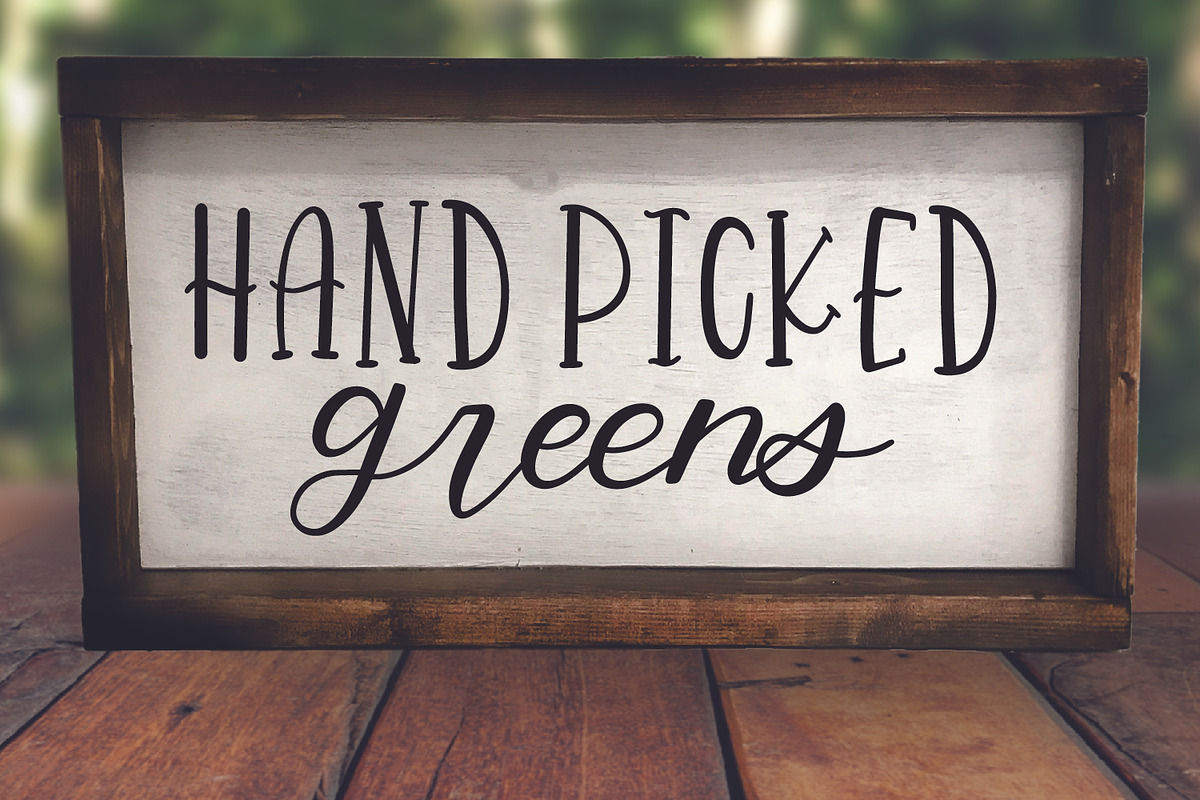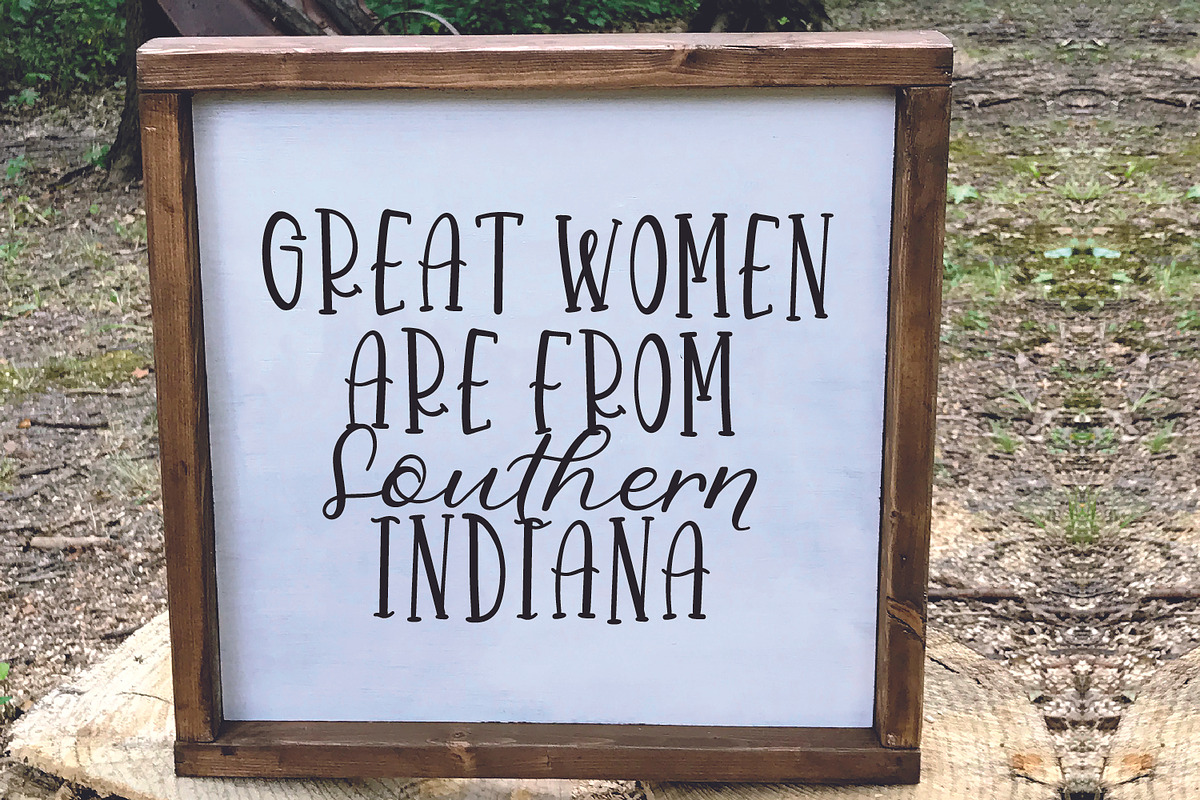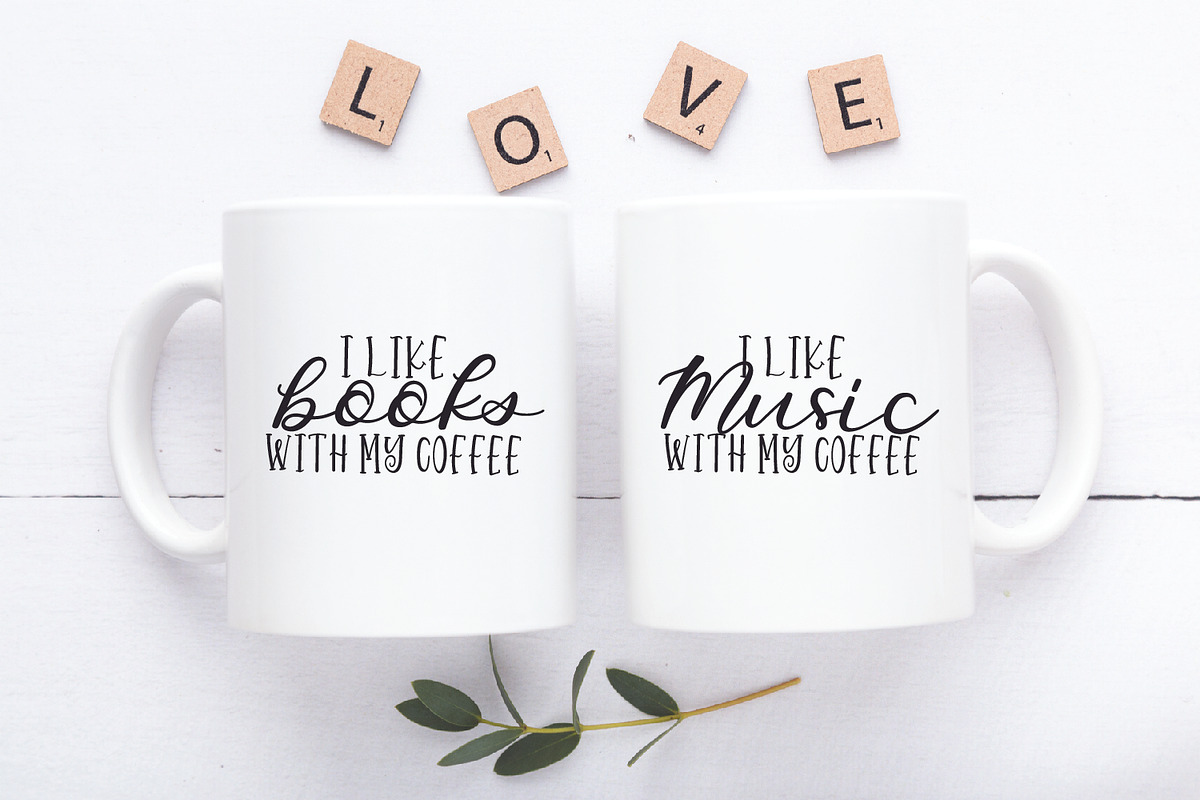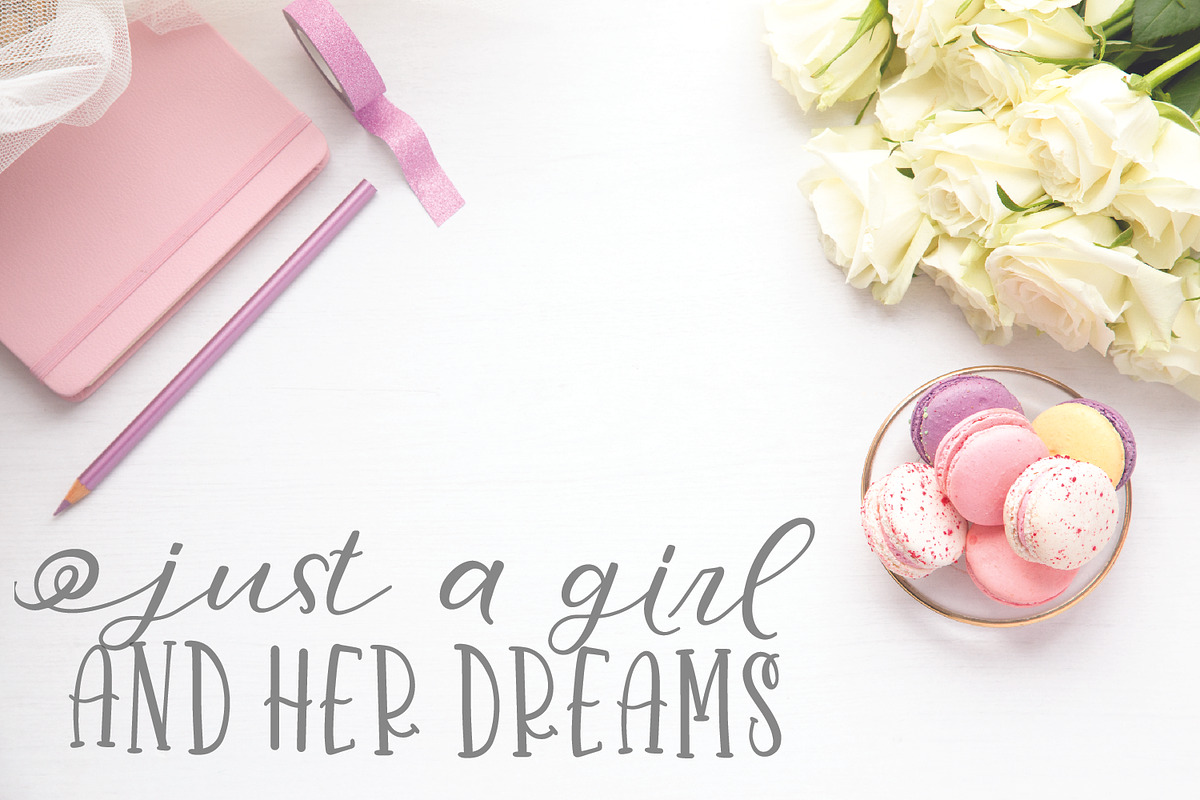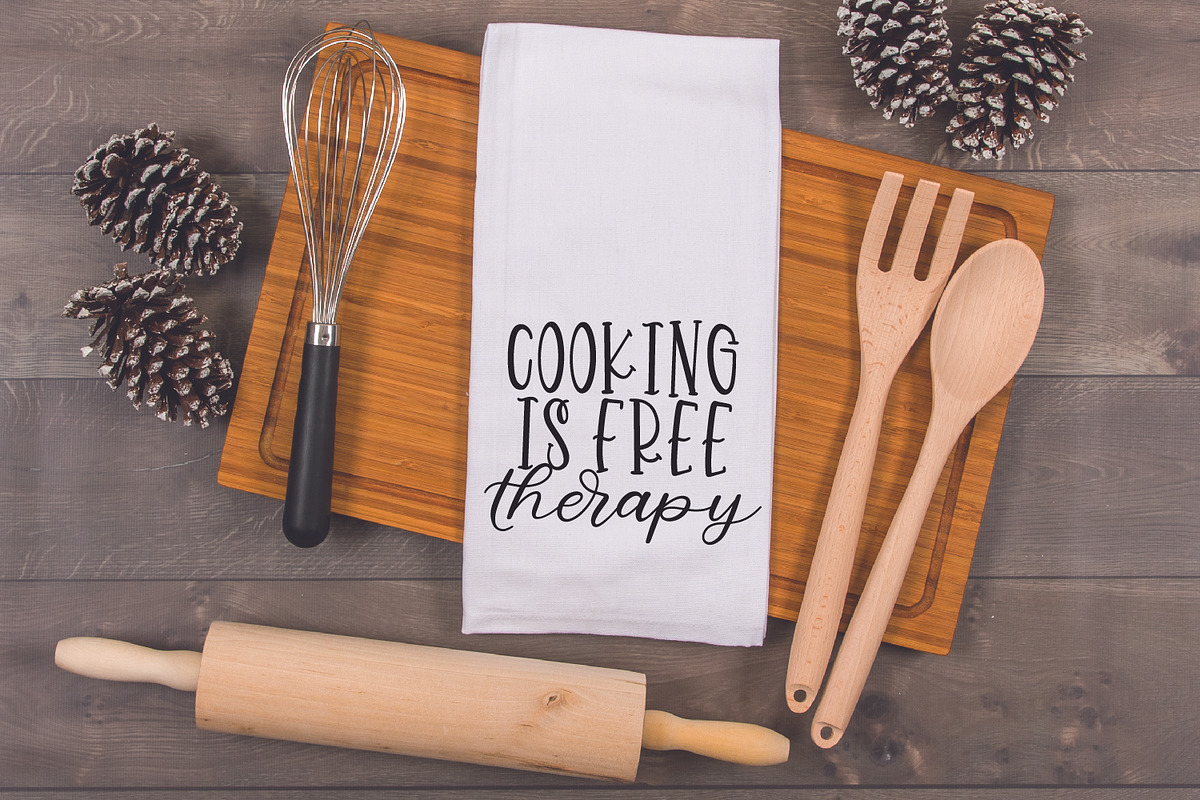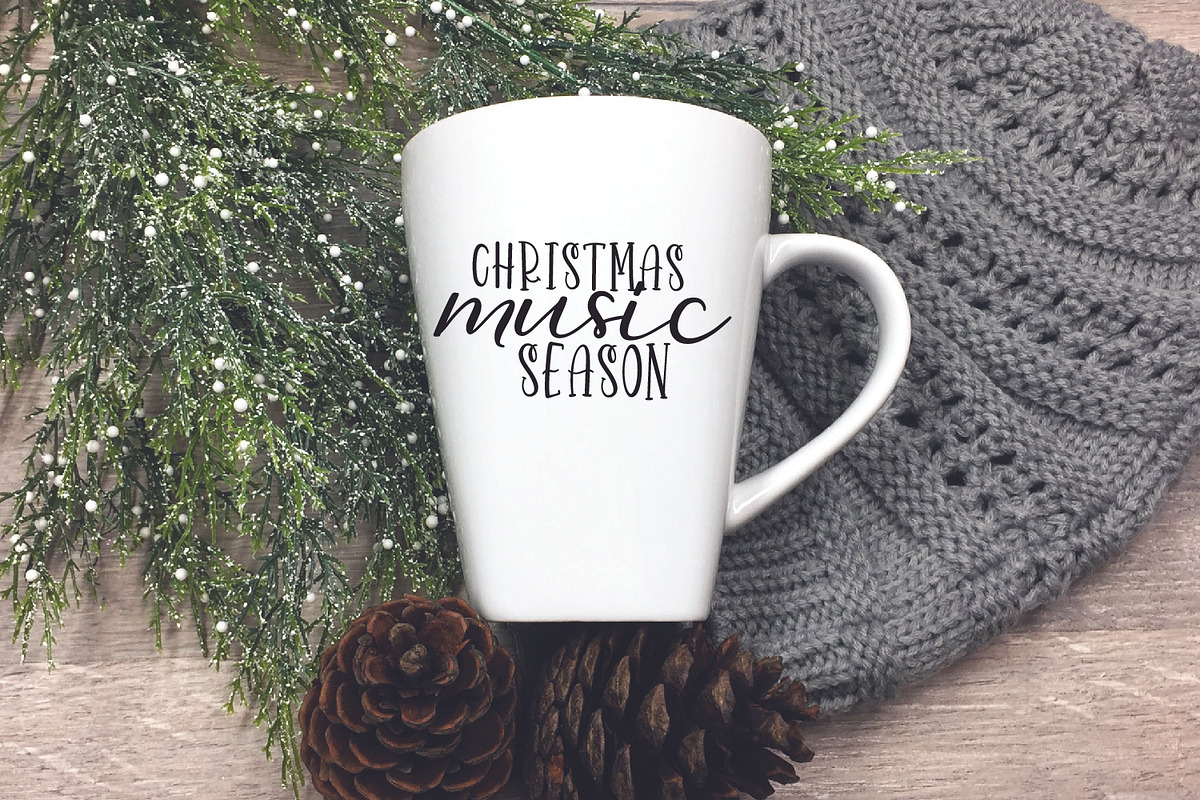
Salmon & Sugar - A Pretty Font Duo
Salmon Sugar A Pretty Font Duo by CraftyLittleNodes is a font selected for branding, posters, packaging, typography.
Why Salmon & Sugar - A Pretty Font Duo is worth a look
Salmon & Sugar - A Pretty Font Duo by CraftyLittleNodes fits naturally into Branding, posters, packaging, typography.